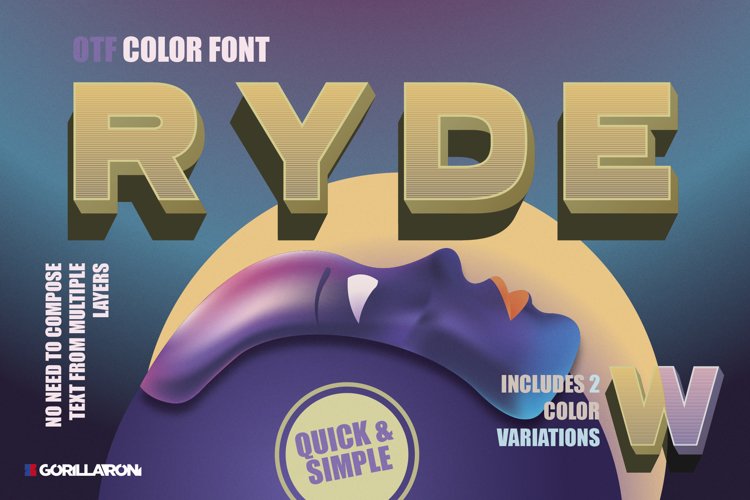
Ryde - sans serif color font
? Introducing the Ryde - uppercase sans serif font. ?
This is a brand, stylish, expressive and cool font ready to give your design a unique look.
• Sans serifs
• All uppercase display, numerals & punctuation